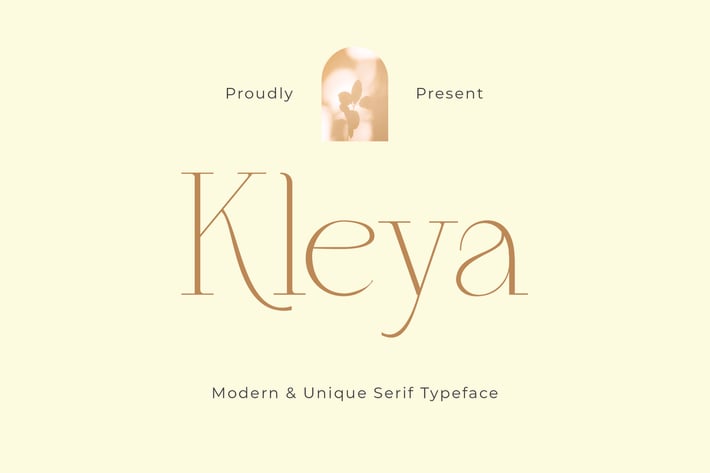
Kleya - Modern Unique Serif Typeface
Kleya - Modern Unique Serif Typeface with a calligraphy style, So beautiful on invitation like greeting cards, branding materials, business cards, quotes, posters, and more!